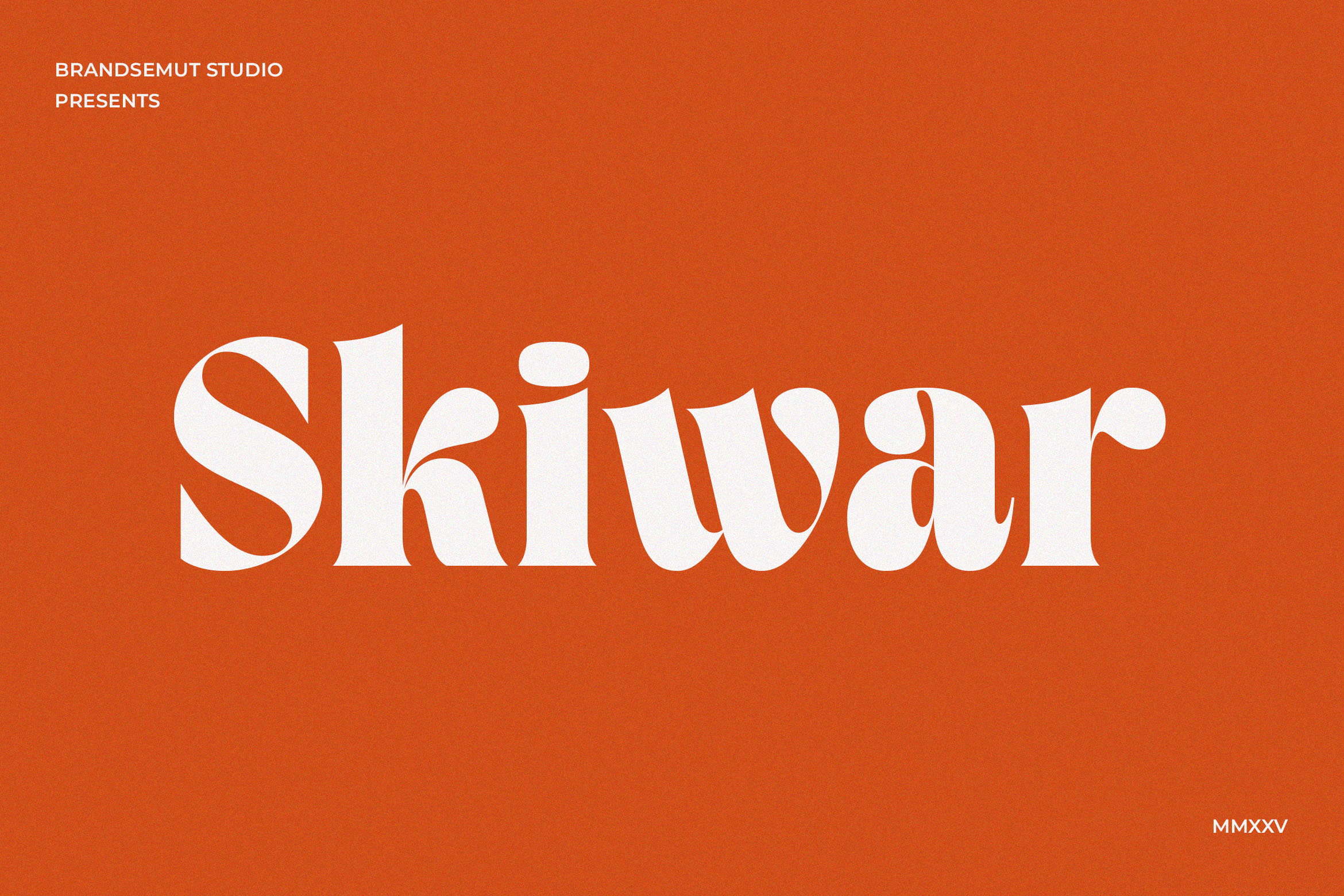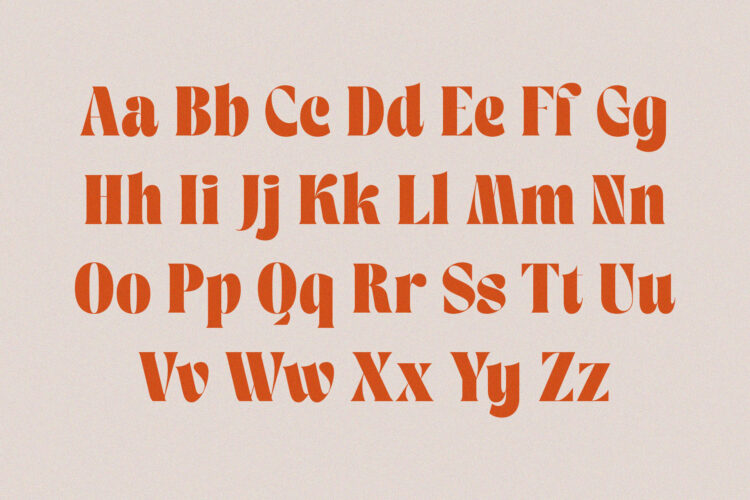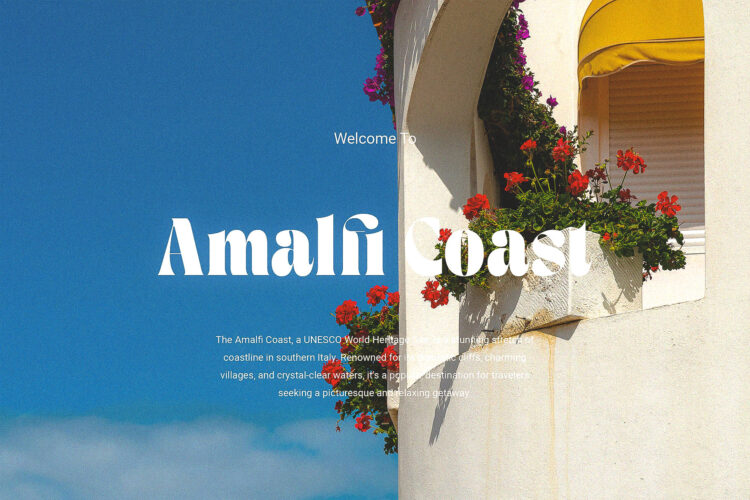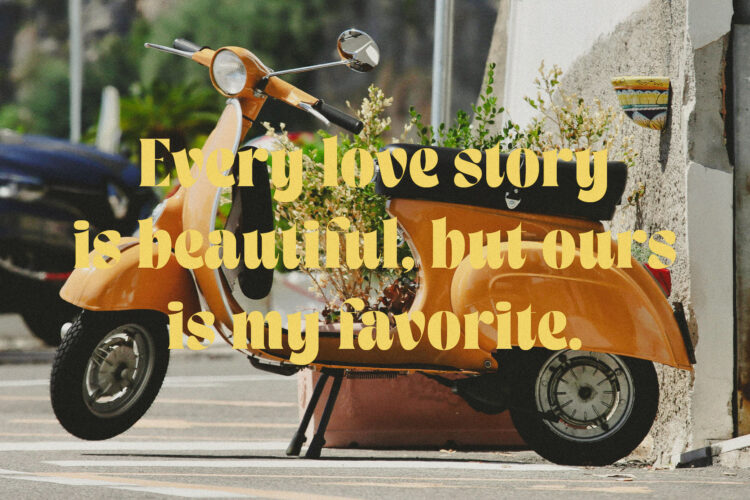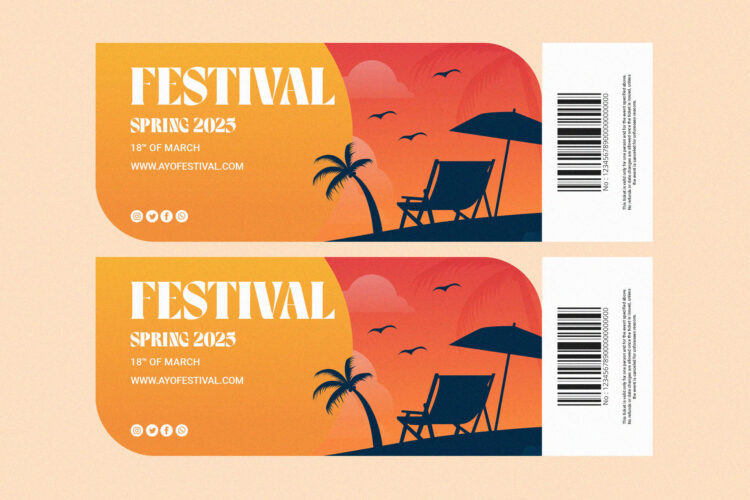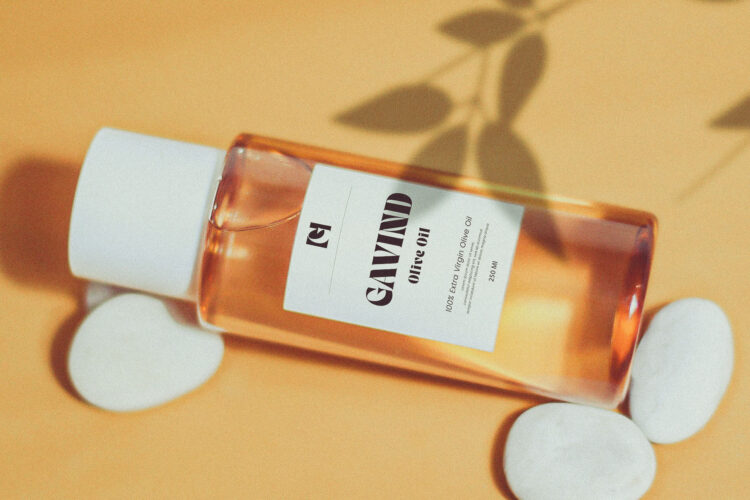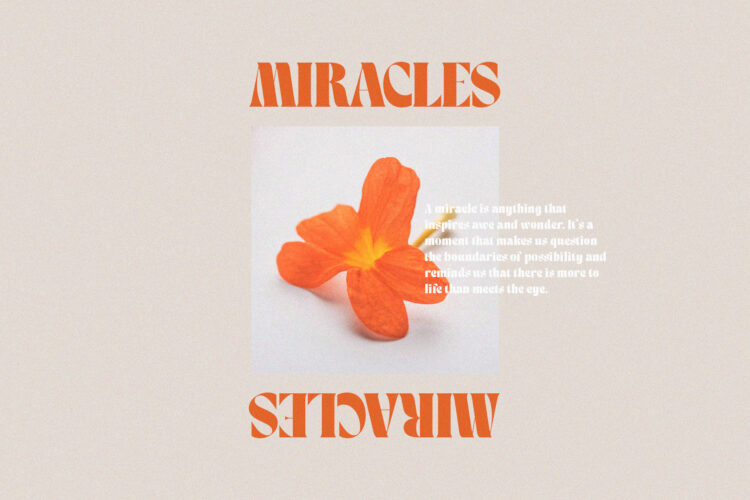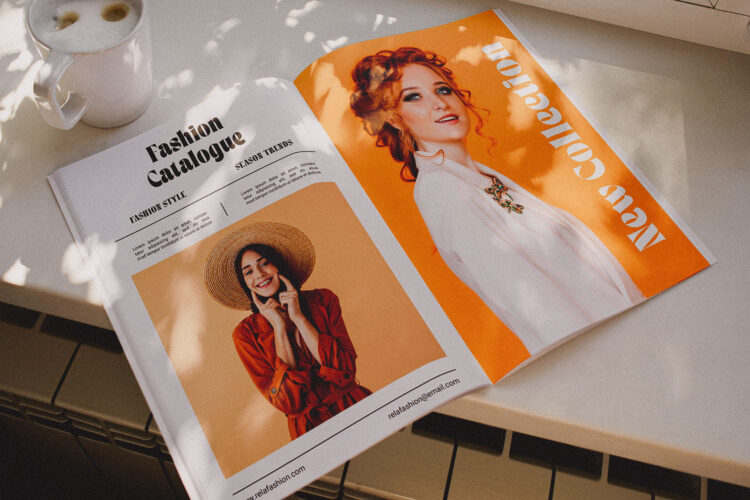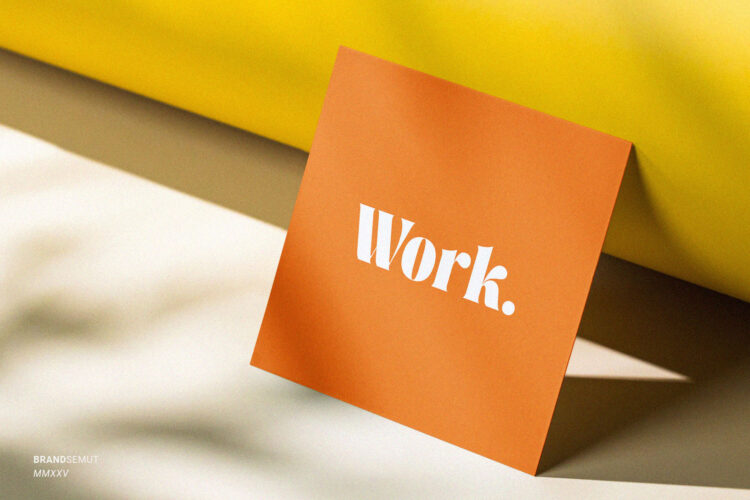
Introducing Skiwar Retro Display Serif.
Skiwar is a retro, elegant and classy display serif, best used as a display for headings, logos, branding, magazines, product packaging and invitations. Skiwar equipped with Ligature and many Alternates and come with clean lines and smooth curves give any project an extra touch of class.